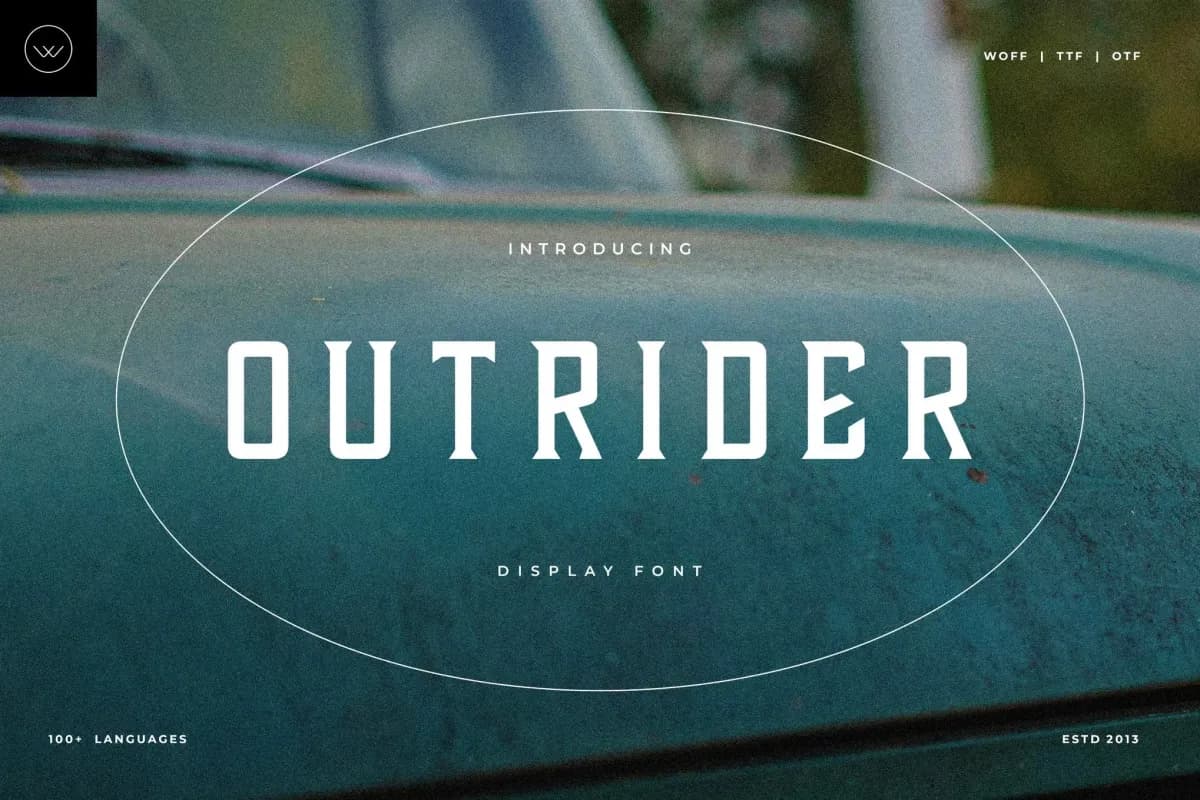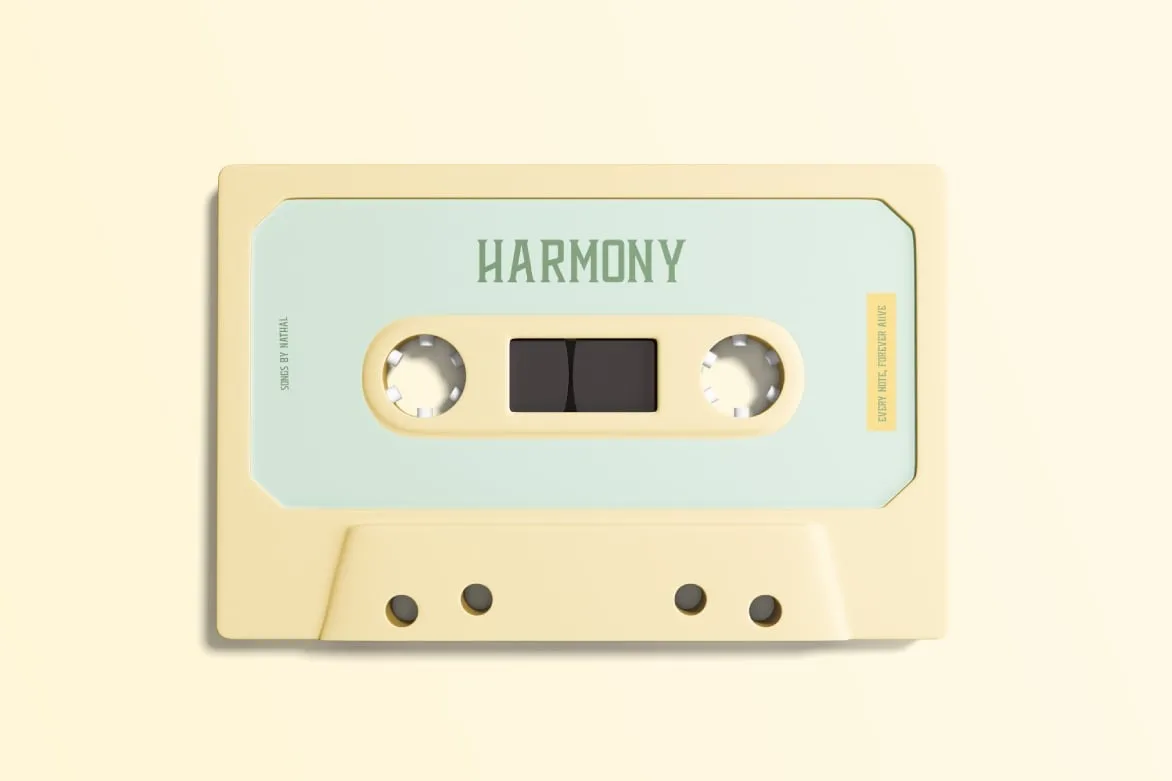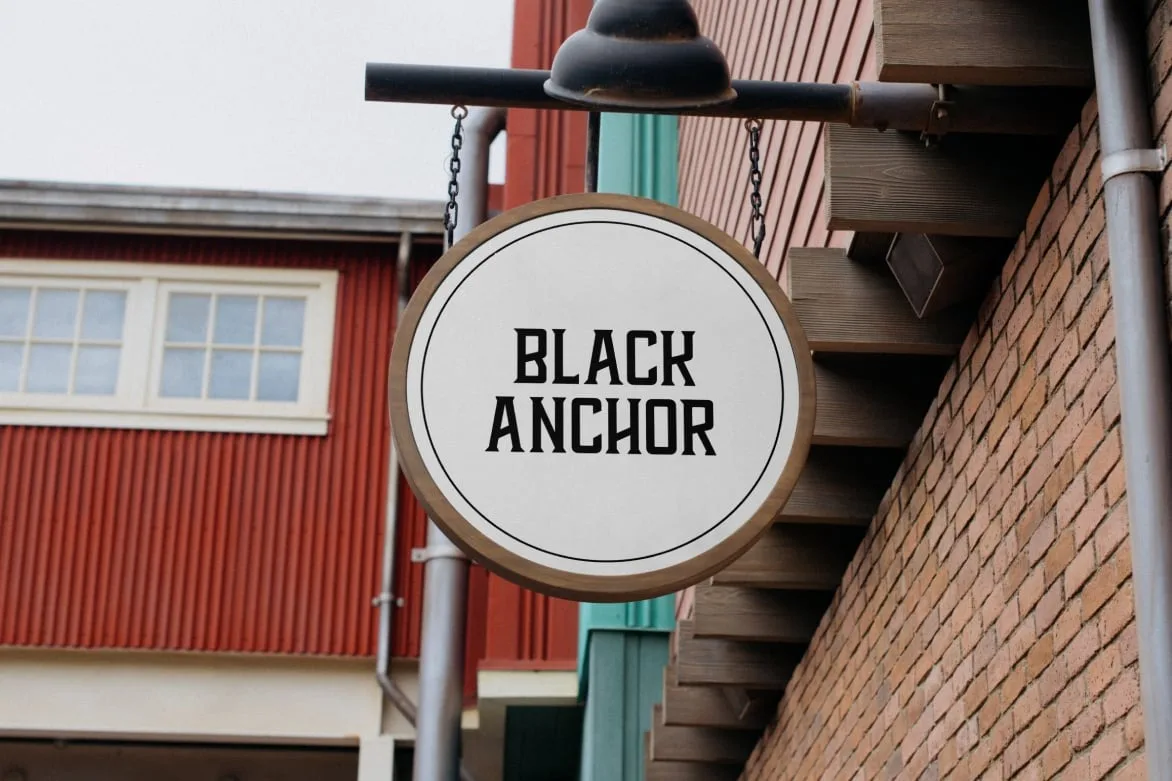
Outrider
Outrider is a captivating sans-serif display font that masterfully blends rustic aesthetics with modern design principles. Characterized by its slab serif elements, this font exhibits a robust geometry and balanced contrast, making it a perfect choice for projects that demand attention and clarity. The thoughtful kerning enhances its legibility across various applications, allowing it to shine in both large and small formats.
Particularly well-suited for branding and logo creation, Outrider excels in scenarios where a touch of vintage adventure is desired. Its unique character lends itself beautifully to outdoor brands, artisanal packaging, and promotional materials that tell a story of heritage and exploration. Beyond traditional uses, this font also adapts effortlessly to modern digital contexts, making it an excellent choice for web/app UI, marketing sites, and social media platforms like Instagram and TikTok.
With its Latin language support, Outrider can reach a diverse audience while maintaining a cohesive look across various media. Whether you're designing posters that need to convey a sense of adventure or crafting signage that stands out in a crowded space, Outrider's distinct personality makes it an essential asset for designers seeking to create memorable and impactful visual communication.